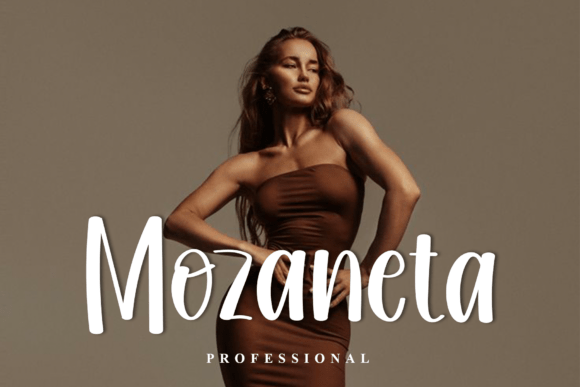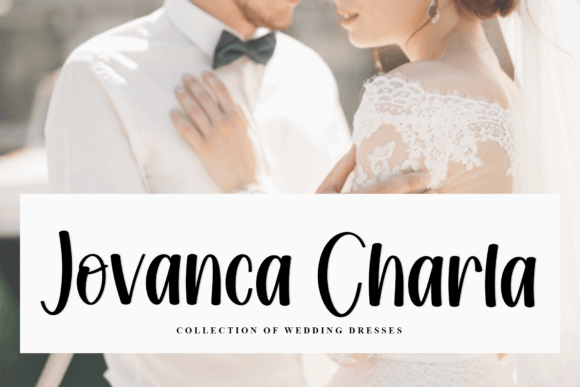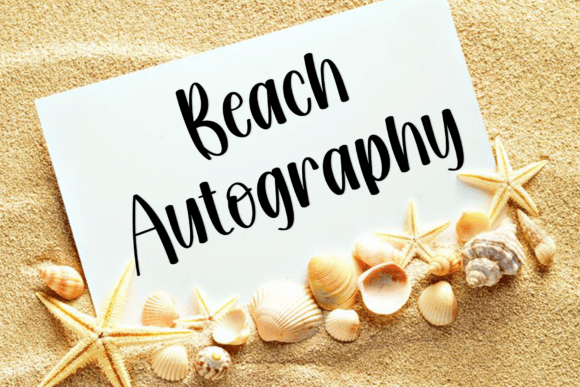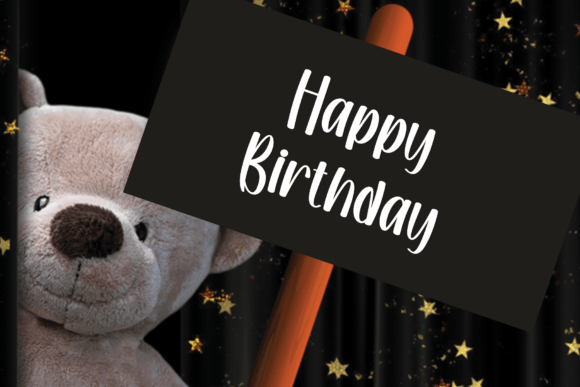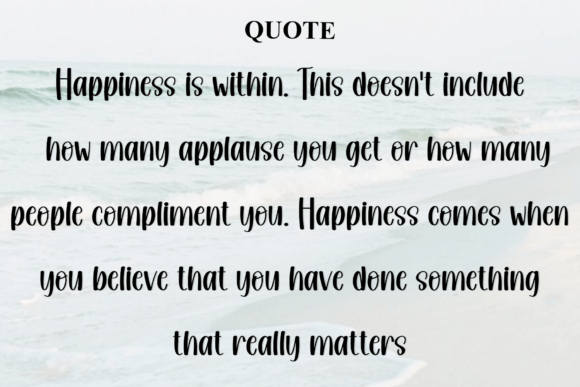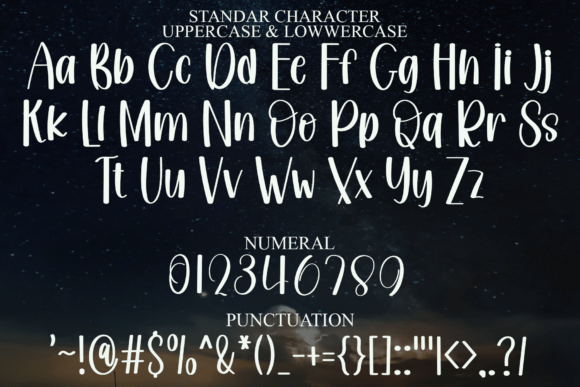
The Charm of Barbie Handmade Font: A Designer’s New Best Friend
I still remember the time I was working on a project for a client’s birthday party invitation. I had all the design elements in place – the colors, images, and layout – but something was missing. It wasn’t until I stumbled upon the perfect font, Barbie Handmade, that the design truly came to life. The casual, creative vibe of this font instantly added a warm and friendly touch to the invitation, making it perfect for the occasion. In this article, I’ll share my experience with Barbie Handmade Font, its features, and how you can make the most of it in your designs.
A Personal Review: What I Love and What to Watch Out For
- ✅ Warm and Friendly Aesthetic: Barbie Handmade Font exudes a charming, hand-drawn feel that’s perfect for personal projects, invitations, and social media graphics.
- ✅ Easy to Read: The round, playful strokes make the font highly legible, even at smaller sizes.
- ✅ PUA Encoded Glyphs: The font comes equipped with standard PUA Encoded glyphs, making it compatible with various design applications.
- ✅ Versatile: Barbie Handmade Font can be used for a wide range of design projects, from digital graphics to print materials.
- 🤔 Limited Formality: As a casual, handmade font, Barbie Handmade may not be the best choice for formal or professional projects.
- 🤔 Glyph Limitations: While the font has a range of glyphs, it may not have all the special characters or ligatures you need for a specific project.
The Story Behind Barbie Handmade Font
Barbie Handmade Font was created with the intention of capturing the warmth and friendliness of handmade crafts. The font’s designer aimed to create a typeface that would evoke the feeling of a personal, handwritten note or a crafty DIY project. With its playful strokes and charming aesthetic, Barbie Handmade Font has become a popular choice among designers and crafters alike.
Q: What is PUA Encoded glyph, and how does it benefit designers?
A: PUA (Private Use Area) Encoded glyphs are special characters that are not part of the standard Unicode character set. They allow designers to access additional glyphs, such as ligatures, swashes, and stylistic alternates, which can enhance the visual appeal of their designs.
Q: Is Barbie Handmade Font suitable for digital and print designs?
A: Yes, Barbie Handmade Font is versatile and can be used for both digital and print designs. Its clear, legible strokes make it suitable for a wide range of applications, from social media graphics to business cards and brochures.